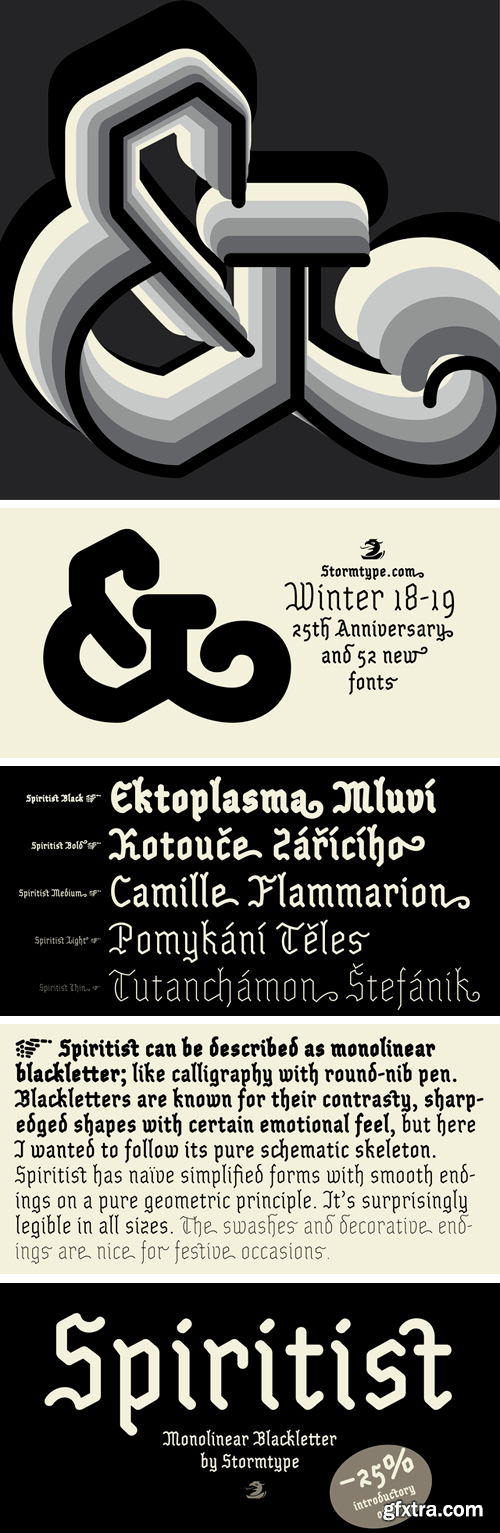
灵主义字体家族
Spiritist Font Family
Spiritist can be described as monolinear blackletter; like calligraphy with round-nib pen. Blackletters are known for their contrasty, sharp-edged shapes with certain emotional feel, but here I wanted to follow its pure schematic skeleton. Spiritist has naïve simplified forms with smooth endings on a pure geometric principle. It’s surprisingly legible in all sizes. The swashes and decorative endings are nice for festive occasions.